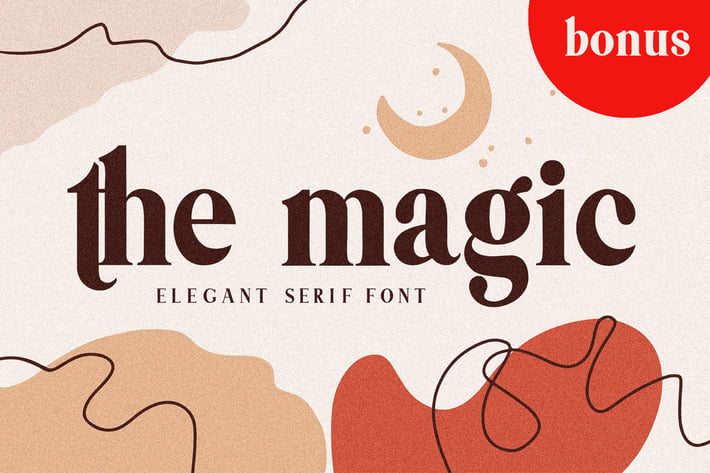
Themagic Serif Font + Bonus
Themagic Elegant Modern Serif Font
- Upper and lowercase letters
- Numbers
- Multilingual support
- 28 Ligatures
- 38 Letters alternative